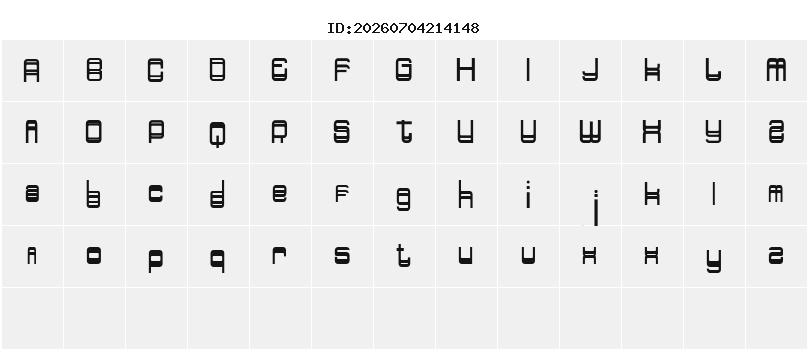
• Font Name: Doppelganger
• Designer: paulo w
Doppelganger.ttf is a modern, elegant sans-serif font designed for ultimate readability and visual harmony. Perfect for branding, headlines, web design, and print materials.